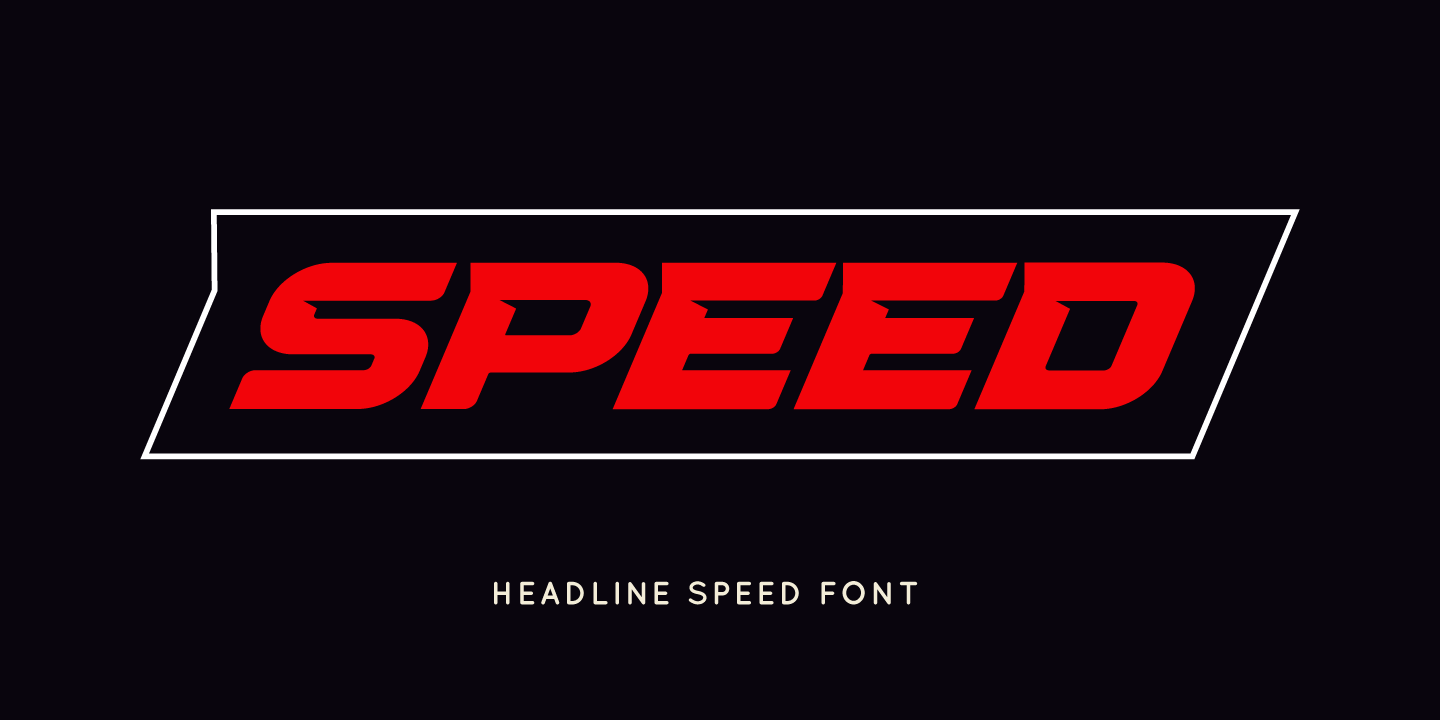
Angled is a bold geometric display font designed for sportswear, athletic branding and modern technology projects. Its strong proportions, forward-driven shapes and distinctive angular cuts create an energetic, competitive character while keeping headlines clear and impactful.
The typeface works especially well for team identities, jerseys, T-shirt graphics, esports branding, racing designs, fitness campaigns, streetwear, product packaging, advertising, posters and powerful logotypes.
Angled includes Regular and Italic styles, uppercase and lowercase letters, numerals, punctuation and multilingual Latin support. It is best suited for headlines, short text, logos and display typography.